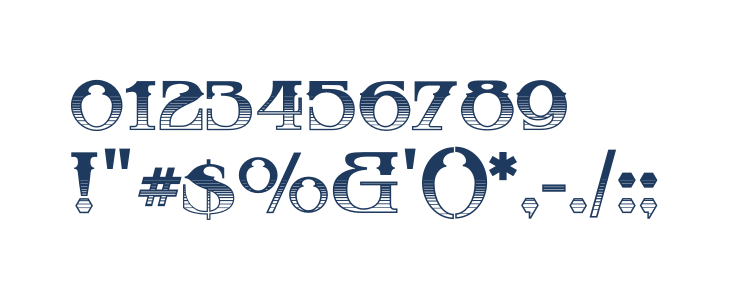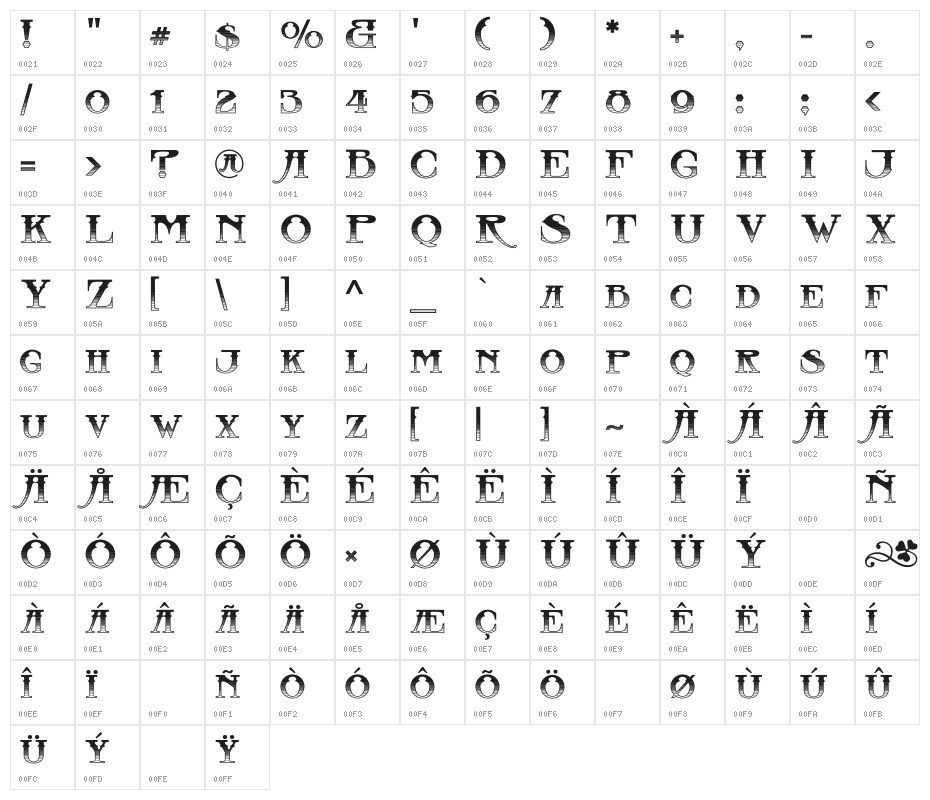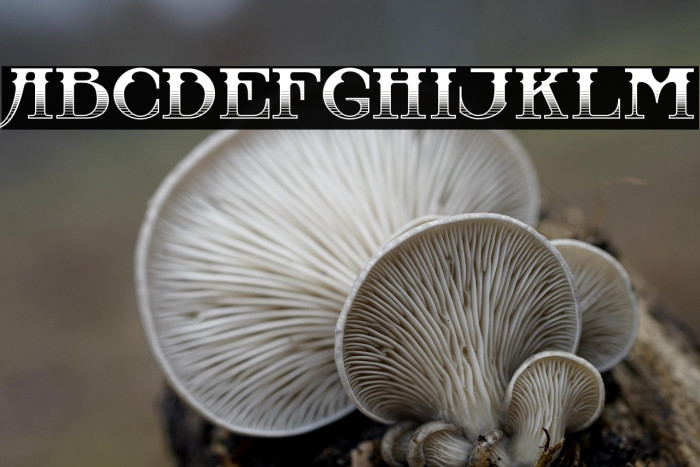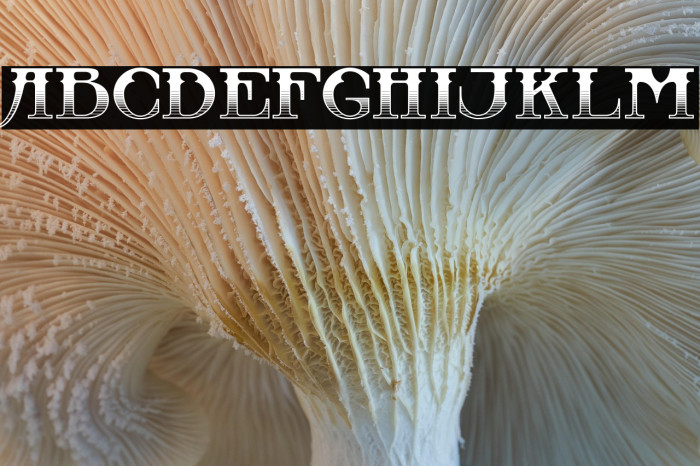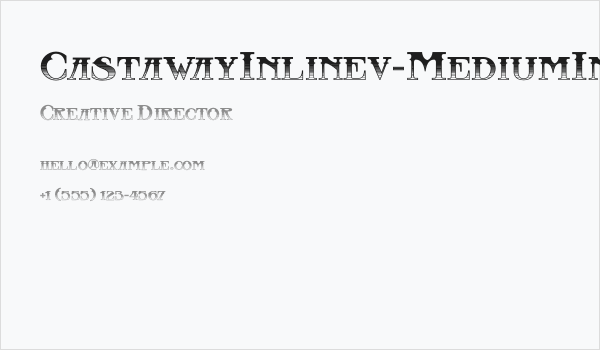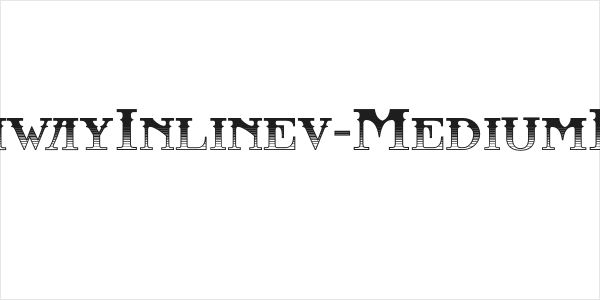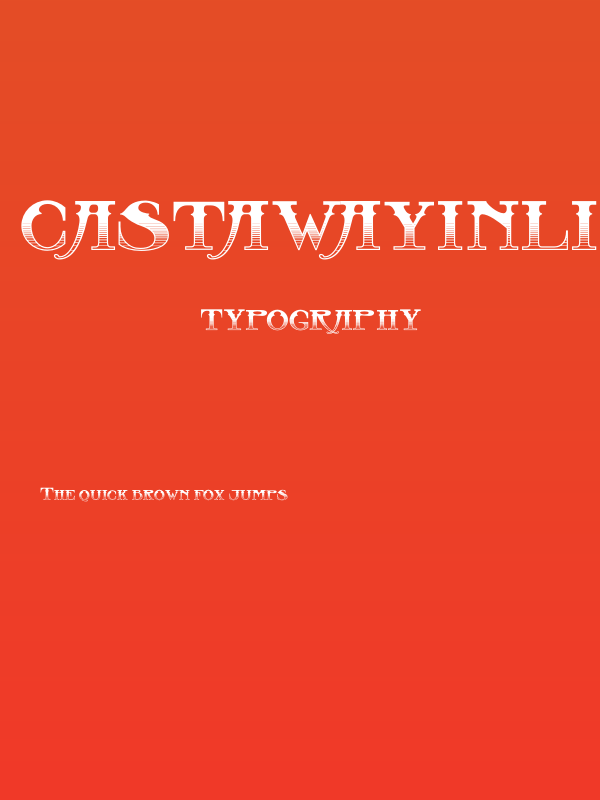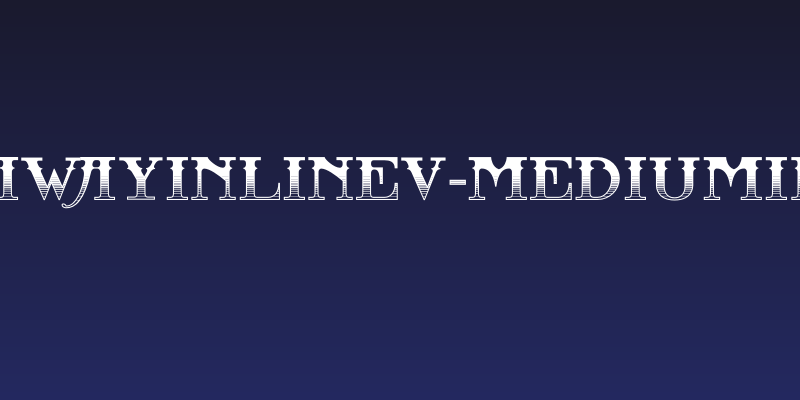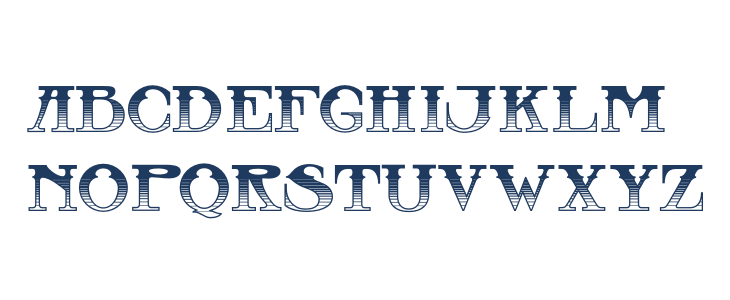
CastawayInlinev-MediumInline Font
CastawayInlinev-MediumInline Description
This font features a bold and decorative style with an inline design that adds a unique flair to each character. The uppercase letters are prominent and eye-catching, with a distinct shadow effect that gives them depth. The lowercase letters maintain the same decorative quality, ensuring consistency throughout. Numbers and special characters are equally stylized, making them suitable for creative projects. The font's overall appearance is both playful and sophisticated, making it ideal for designs that require a touch of elegance and creativity.
Proposed ProjectsIdeal for posters, branding, headlines, and any project requiring a bold, creative touch.